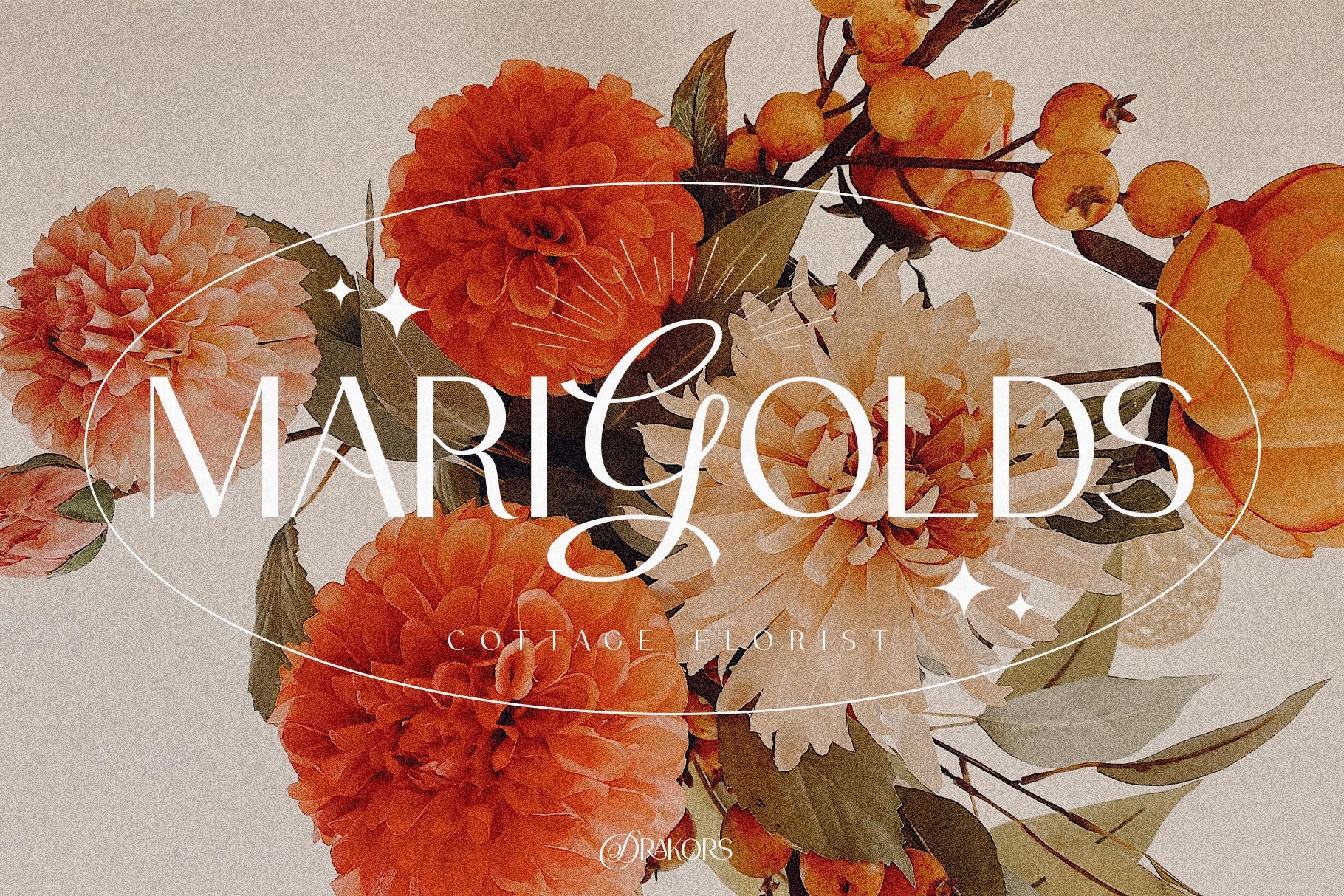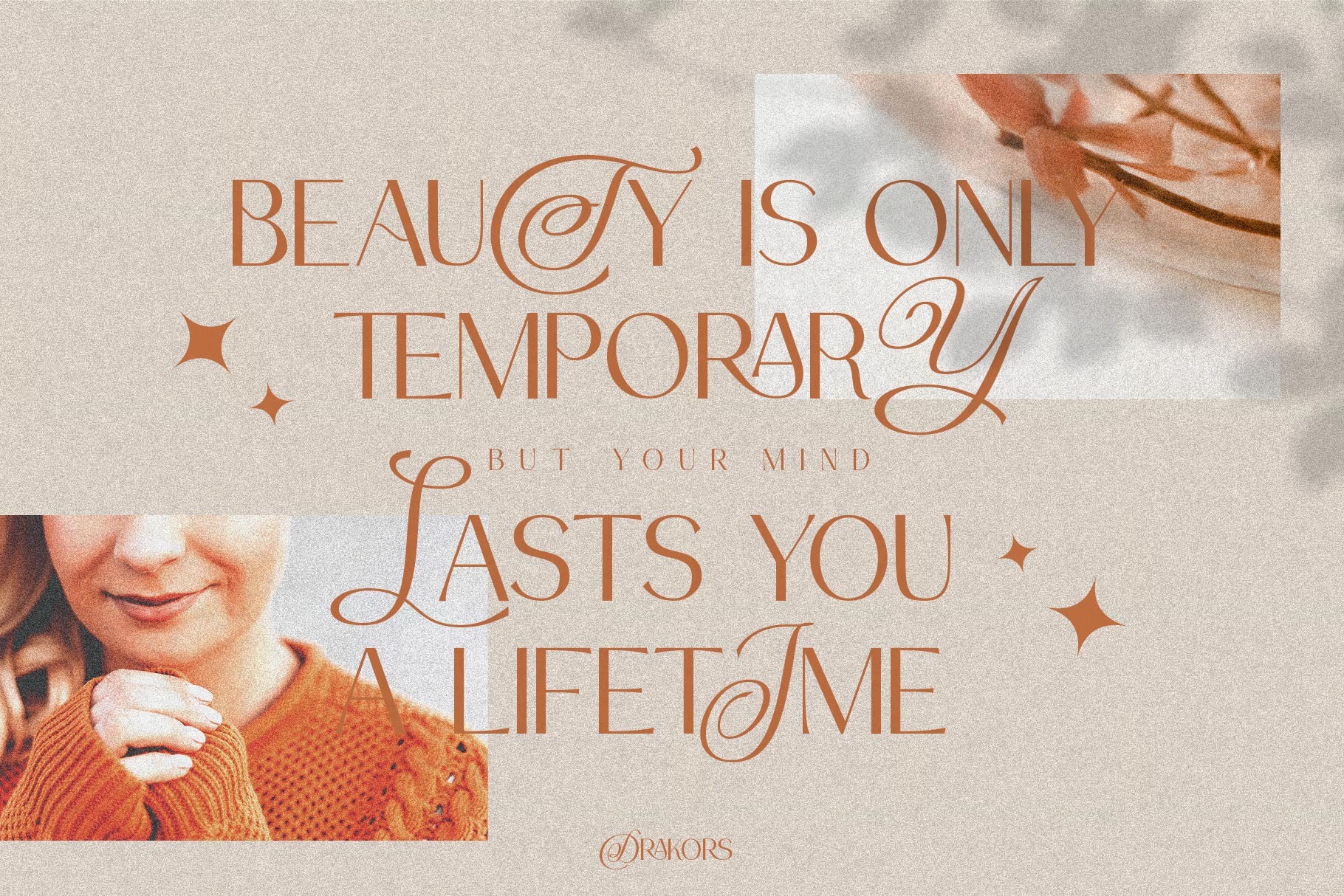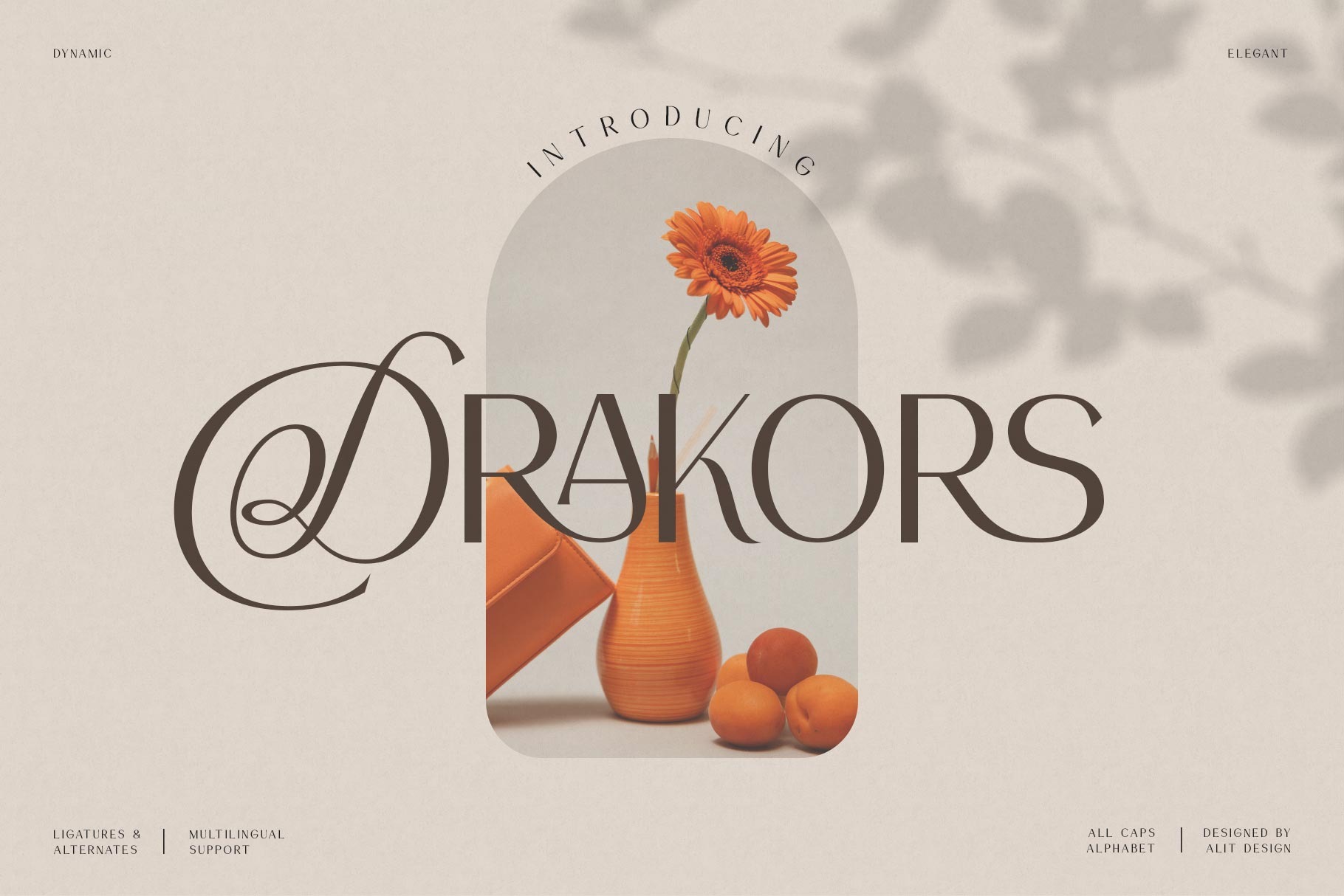
Drakors Font
Drakors Sans Serif Font
If you’re looking for an elegant typeface to attract your audiences or customers then we’ve got the font for you! DRAKORS font is designed by combining an elegant script font with a simple and charming serif font style. This font has a modern serif style combined with elegant script-style letters that make the DRAKORS font look different and unique from the fonts you have on your computer collection.
DRAKORS is perfect for magazine cover designs, brochures, flyers. Instagram ads, Canva Design and so on with unique and modern concepts. besides that this font is very easy to use both in design and non-design programs because everything changes and glyphs are supported by Unicode (PUA).